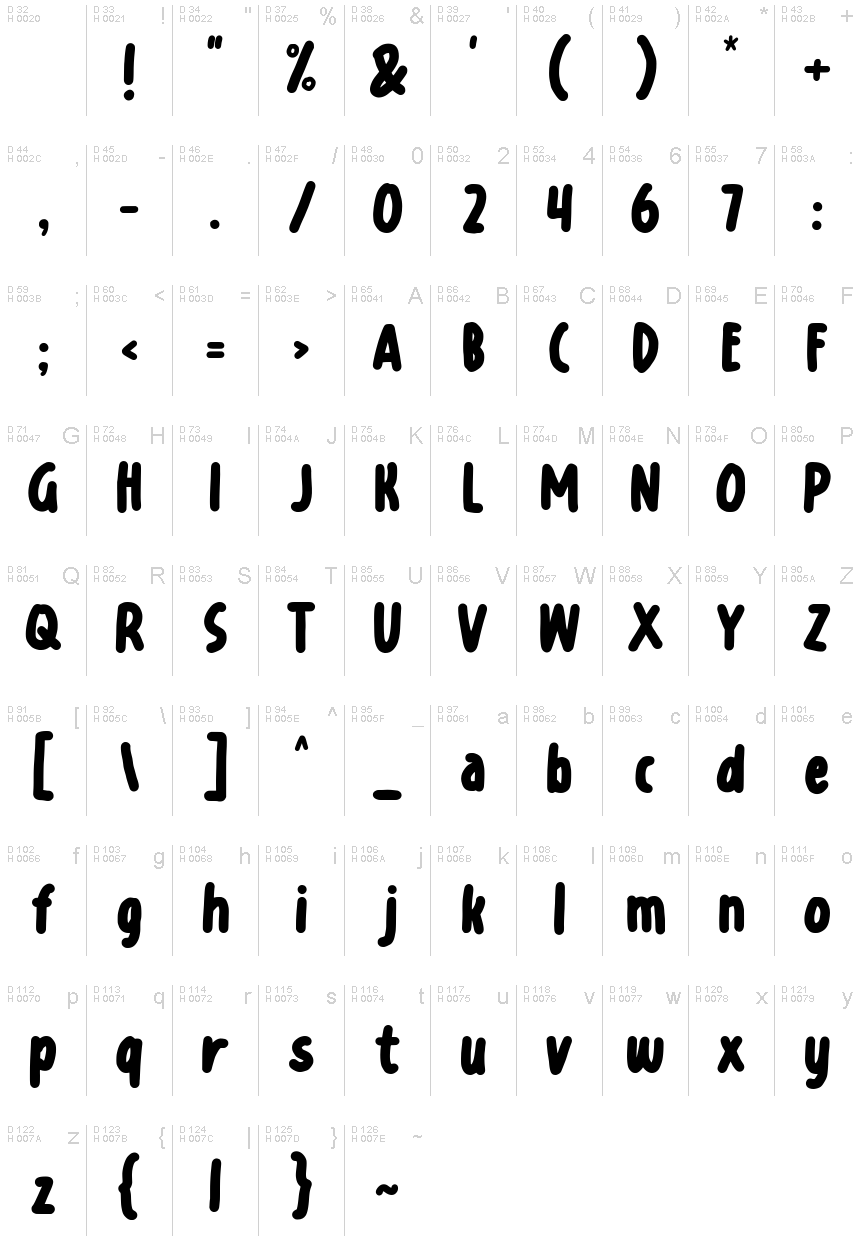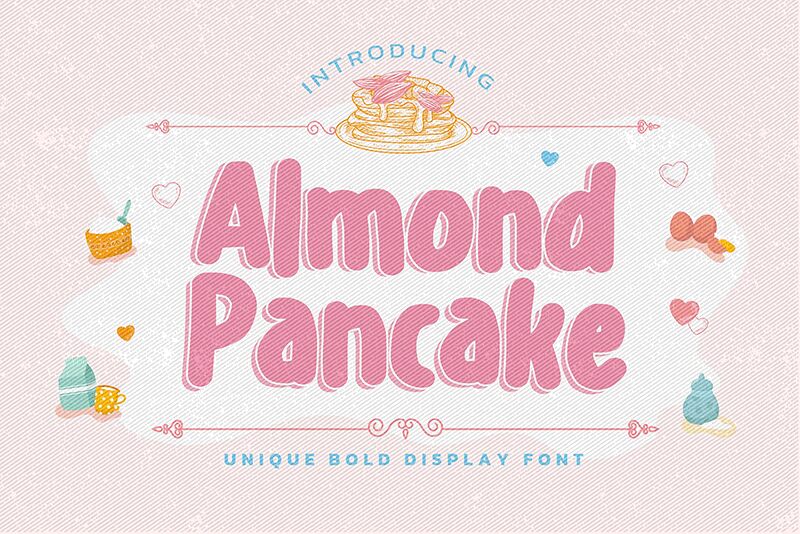
Almond Pancake
Almond Pancake is a delightfully whimsical font that effortlessly blends playfulness and elegance.
Designed by the talented team at Gassstype, this bold and condensed handwritten script exudes a charming, artisanal allure. The thick, expressive strokes and compact form create a delightful visual rhythm, evoking the cozy comfort of a homemade breakfast. This font would shine in a variety of design contexts, from rustic bakery branding to cozy lifestyle publications, adding a touch of warmth and personality to any project.
Whether used for bold headlines, inviting labels, or heartfelt handwritten notes, Almond Pancake's unique character is sure to captivate and delight.